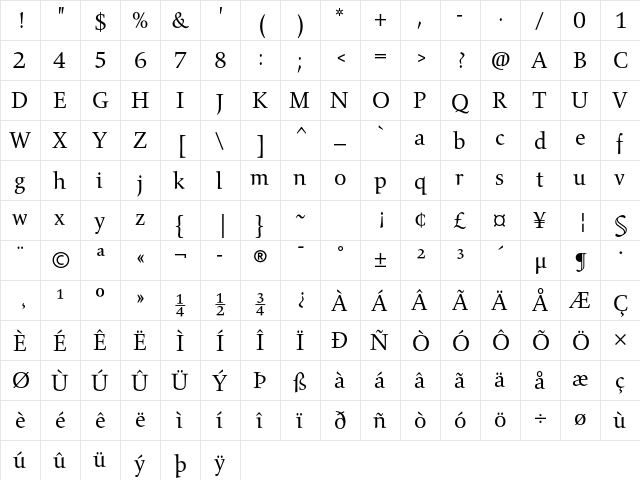
Gilgamesh Std Book
| Designer | Michael Gills |
Design Context for Gilgamesh Std Typeface
Gilgamesh Std is a composed and adaptable typeface that performs quietly and consistently across a wide range of design contexts.